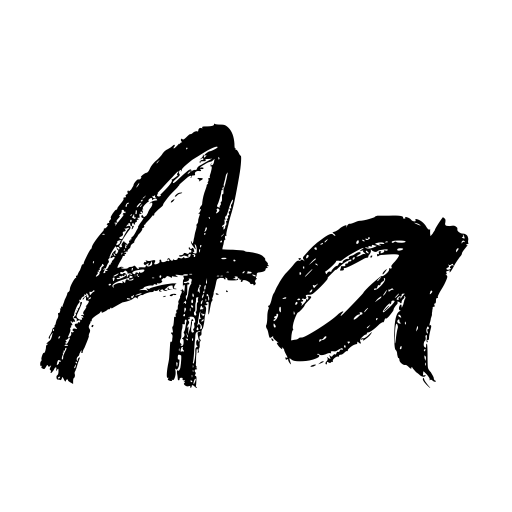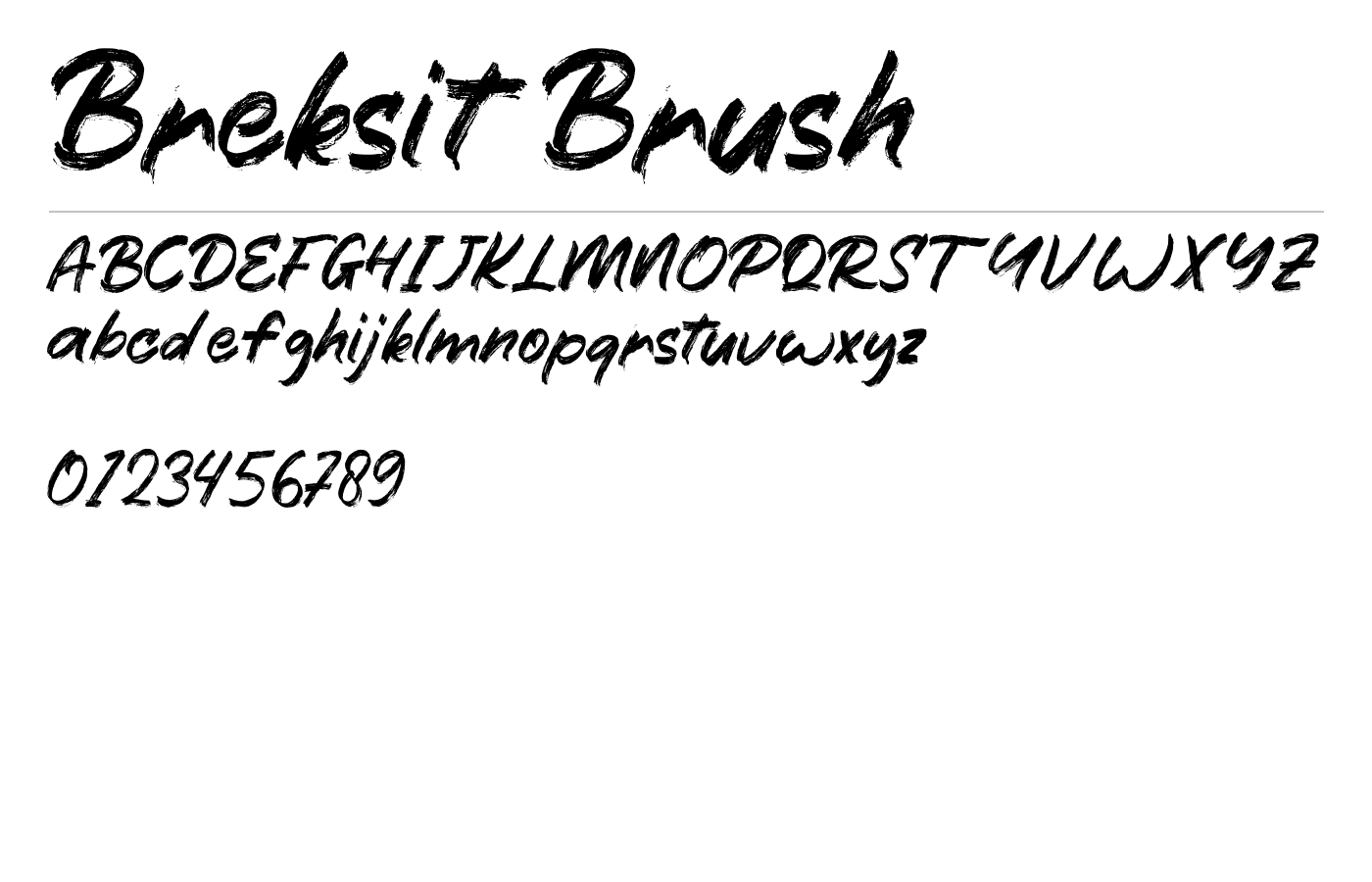
Breksit Brush is a bold, expressive brush script font that captures the authentic texture of hand-painted strokes with its rough, uneven edges and dynamic contrast. Its casual, energetic style brings a creative and approachable feel, making it perfect for branding, posters, and designs that seek a lively, artistic touch. This font works especially well for projects that want to convey personality and spontaneity while maintaining clear legibility.
Breksit Brush Font
About Breksit Brush Font
| Font family | Breksit Brush Font |
| Designer | Keristyper Team |